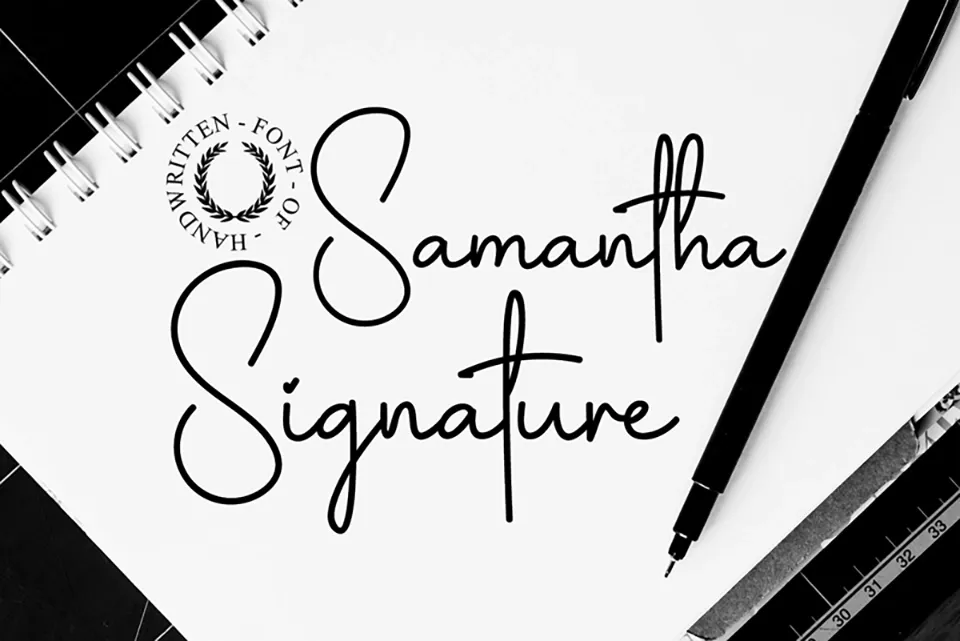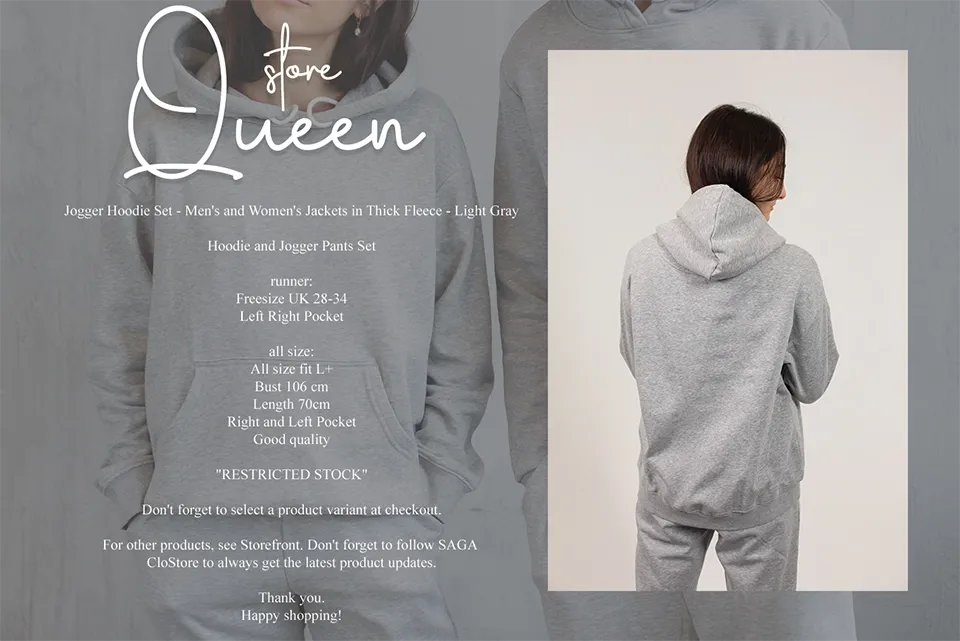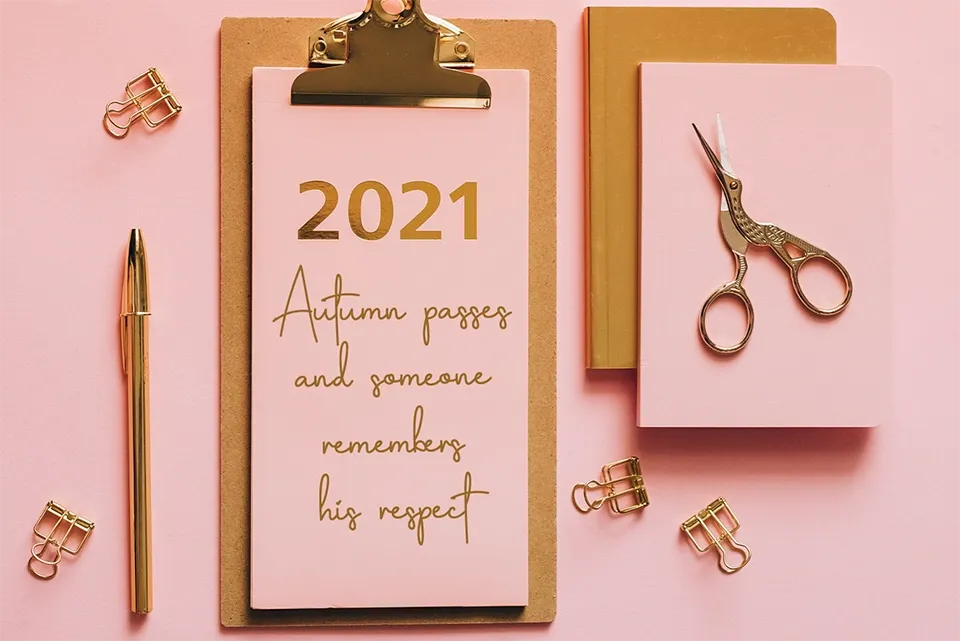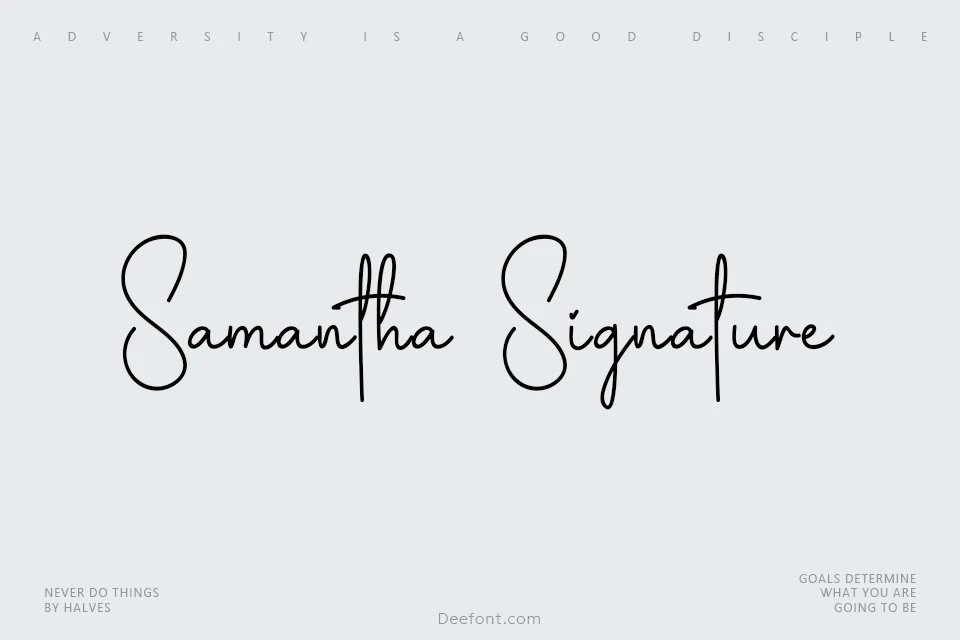
Samantha Signature Font
Samantha Signature Font is a stylish handwritten font that combines elegance and personal charm. With its smooth curves and natural flow, this typeface is perfect for creating sophisticated designs that stand out. Ideal for branding, invitations, logos, and social media posts, Samantha Signature mimics the look of authentic handwriting, adding a touch of individuality to your projects. Its refined yet approachable style ensures versatility across various applications, from formal designs to casual creative works. Whether you’re crafting a signature logo or enhancing a personal project, Samantha Signature delivers timeless beauty and modern flair in every stroke.